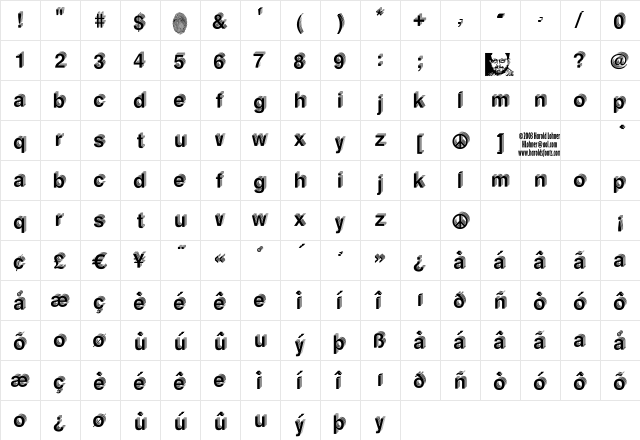
LevelFour Regular
Design Context for LevelFour Typeface
LevelFour is a composed and adaptable typeface that performs quietly and consistently across a wide range of design contexts.